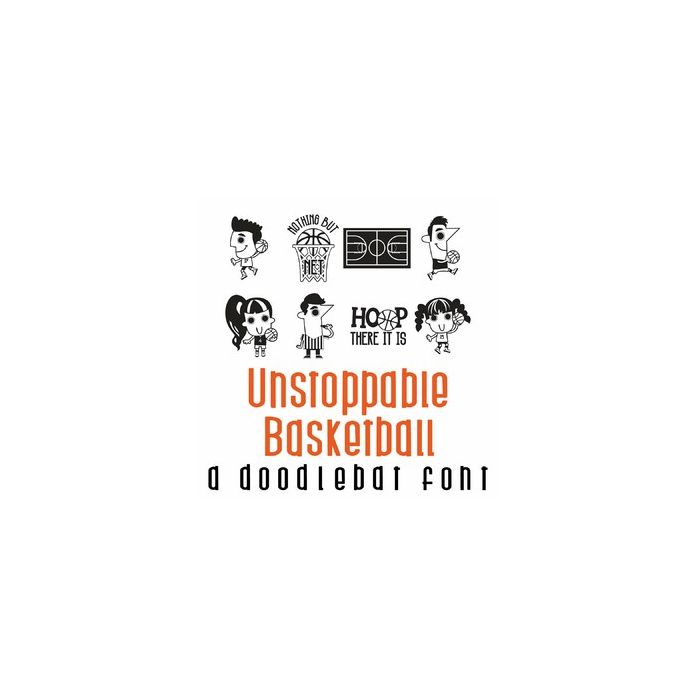
This fun doodlebat font features 26 basketball players and iconic images. Perfect for cards, crafts, gifts, decor, planner stickers, scrapbook pages and more!